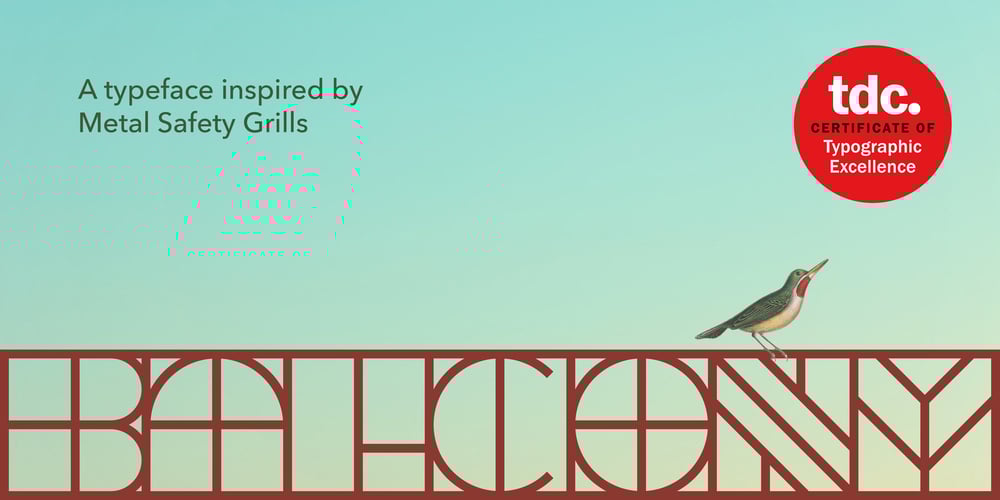
Balcony Font Family was designed by Shaily Patel and published by Shaily Patel. Balcony contains 3 styles and family package options. Balcony is a decorative display typeface inspired by the patterns of metal safety grills. Its highly geometric features may be used to identify it as Art Deco. It is a monospaced type family with all characters confined in a square frame. The main idea of Balcony is to create a grill-like pattern when letterforms are placed together. This creates an illusionary experience for the reader. The best way to use this typeface is without leading, as shown in the visuals.Balcony also comes with two stylistic sets. The first stylistic set contains most characters with more decorative elements and the second one includes Dingbats. These Dingbats are motifs with simple geometric patterns that may be used for any kind of ornamentation. The diacritics letterforms are geometrically squeezed within the square frame to include the accents. This experimental typeface comes with about 650 characters and four weights (Thin, Light, Regular and Bold). The font family supports Western and Central European languages.